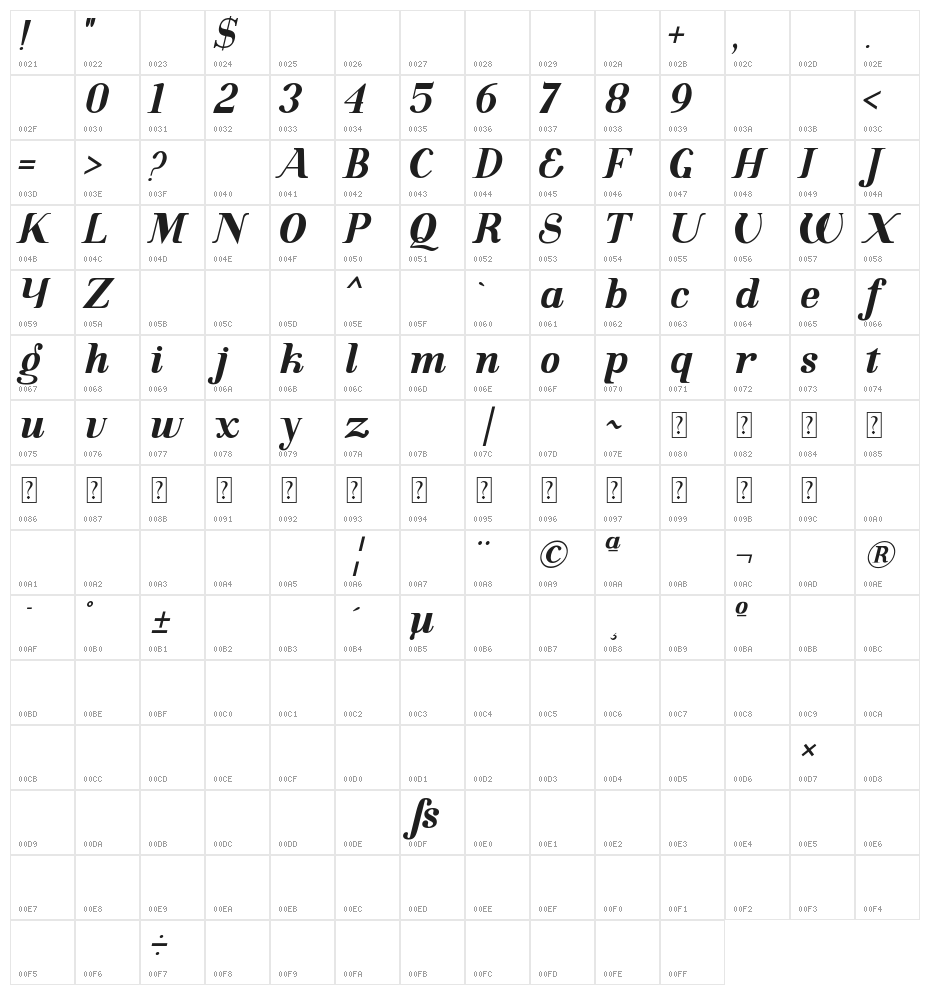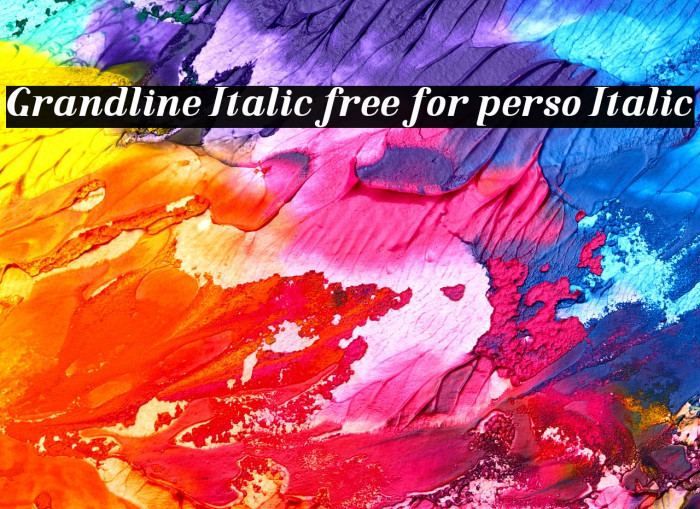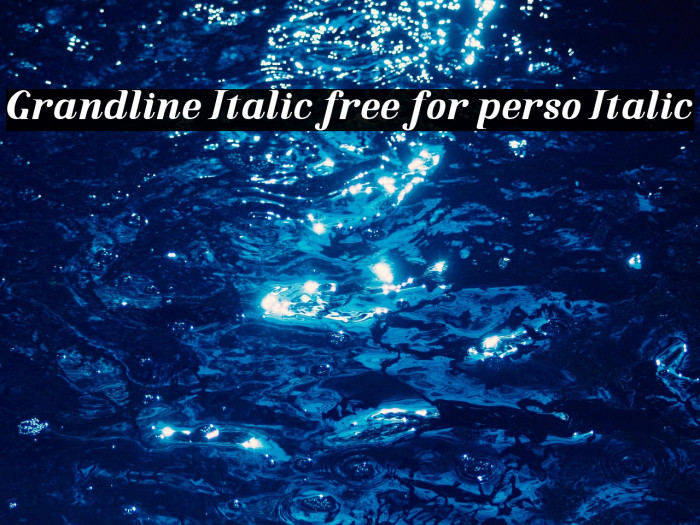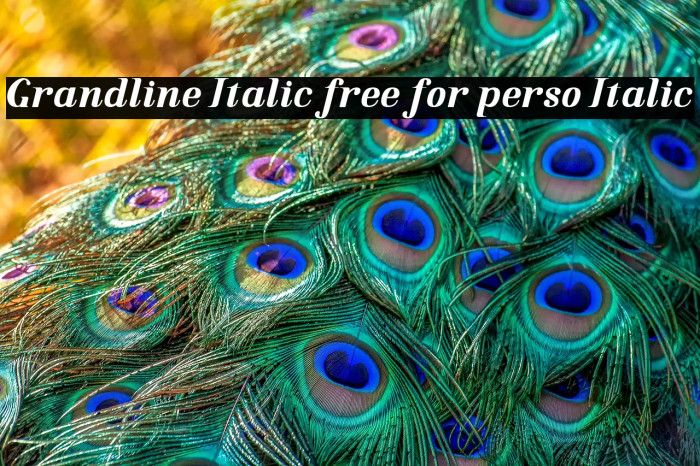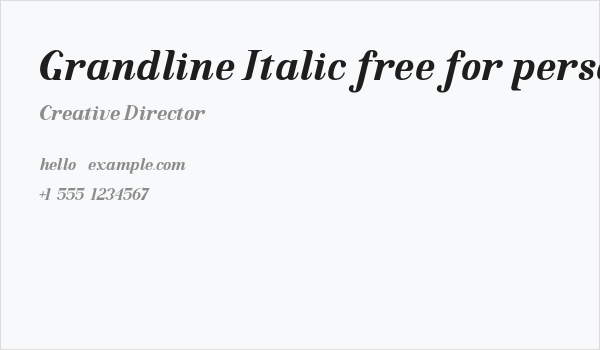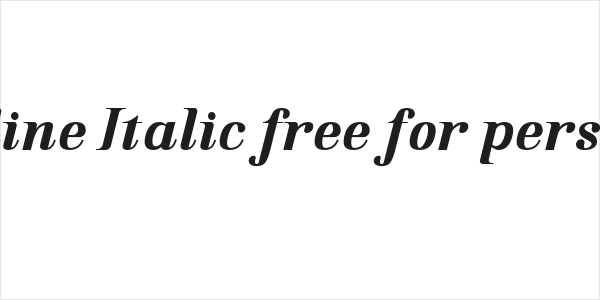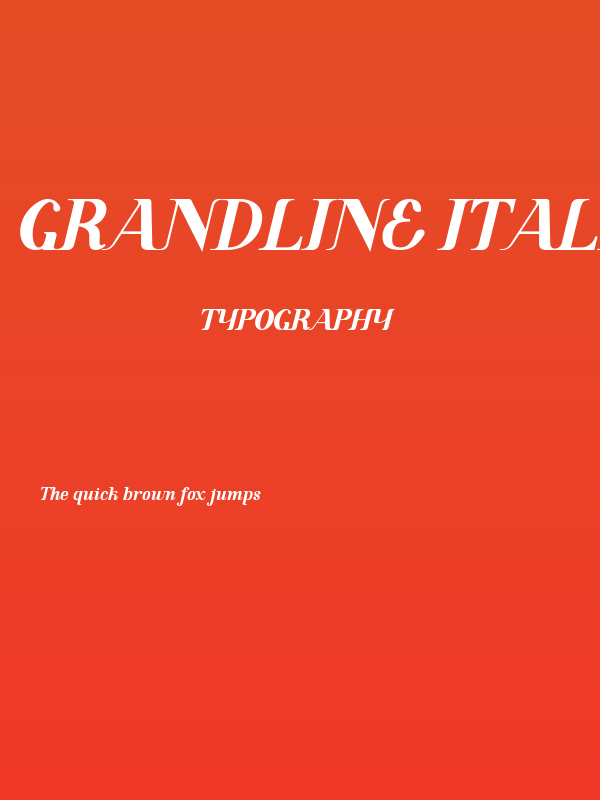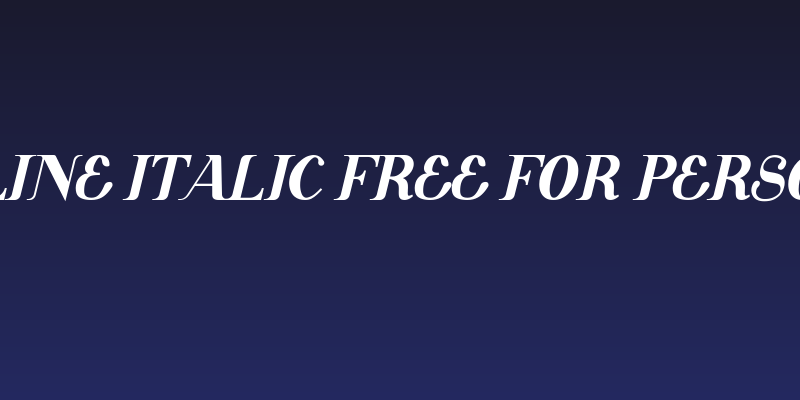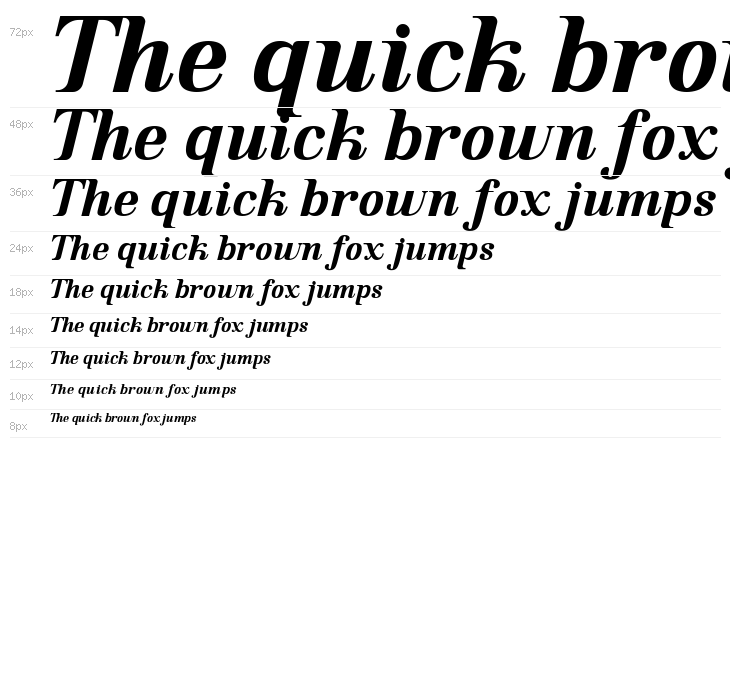
This font features a classic italic style with elegant, flowing curves and a sophisticated appearance. The uppercase letters are bold and slightly condensed, giving them a strong presence, while the lowercase letters maintain a graceful and fluid form. The numerals are robust and consistent with the overall style, ensuring readability. Special characters are designed with the same attention to detail, providing a cohesive look across all glyphs. The font's high contrast between thick and thin strokes adds to its refined and polished aesthetic, making it suitable for a variety of design applications.
| Proposed Projects | Ideal for wedding invitations, luxury branding, editorial design, and elegant packaging. |